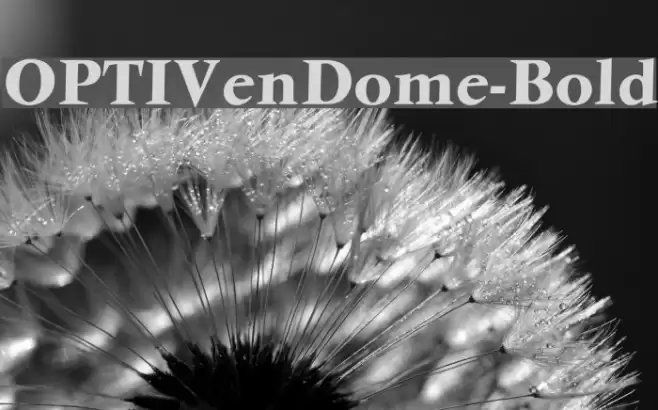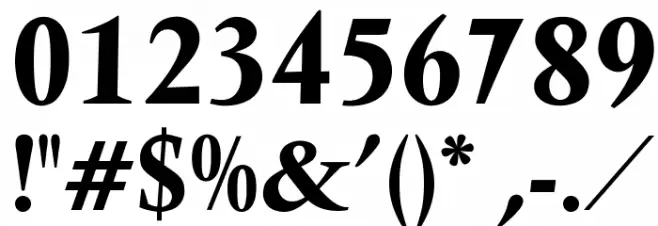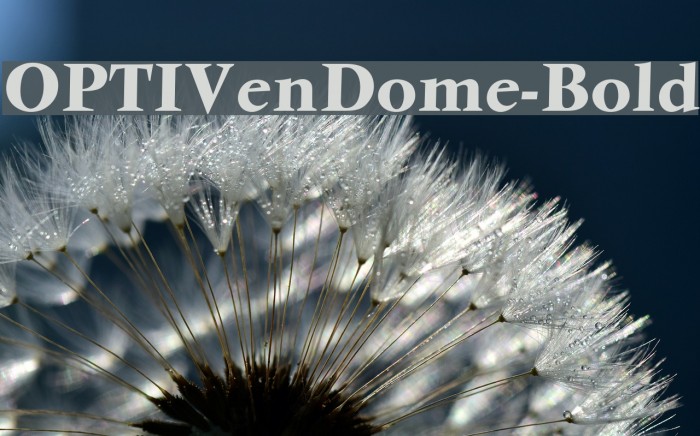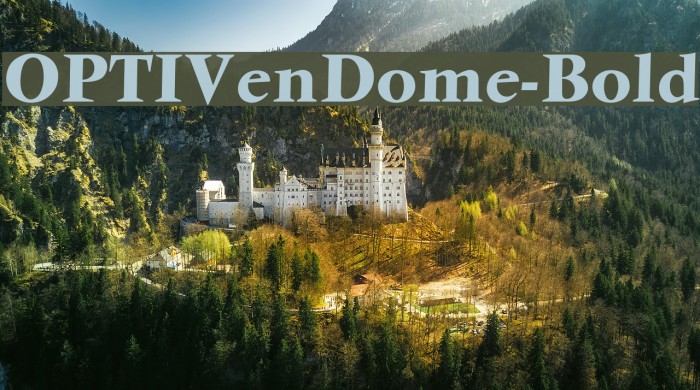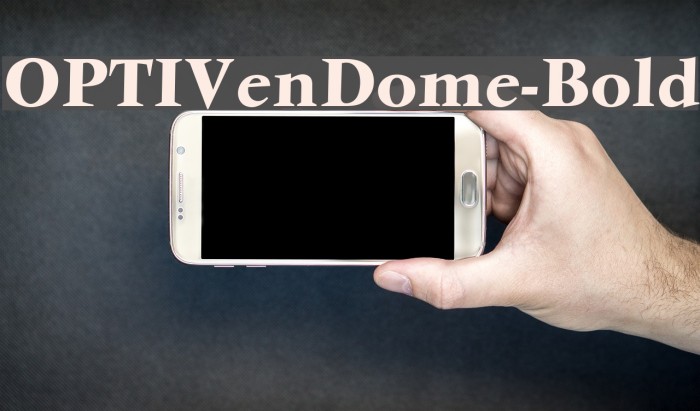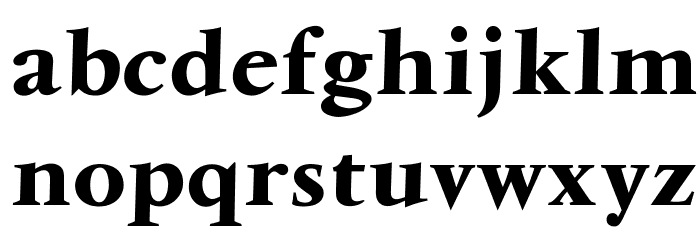
OPTIVenDome-Bold Font
OPTIVenDome-Bold Description
This font exhibits a bold and authoritative presence, characterized by its strong serifs and high contrast between thick and thin strokes. The uppercase letters are robust and commanding, while the lowercase letters maintain a consistent weight, providing a harmonious balance. The numerals are clear and distinct, ensuring legibility. Special characters are elegantly integrated, maintaining the font's cohesive style. The overall design is both classic and modern, making it versatile for various applications.
A bold serif font with high contrast and strong serifs, offering a classic yet modern look from Uncategorized fonts.
- Proposed Projects: Ideal for use in headlines, branding, editorial design, and formal invitations.
- Overall Style: Classic
- Use Case: Headlines, Logos, Editorial design